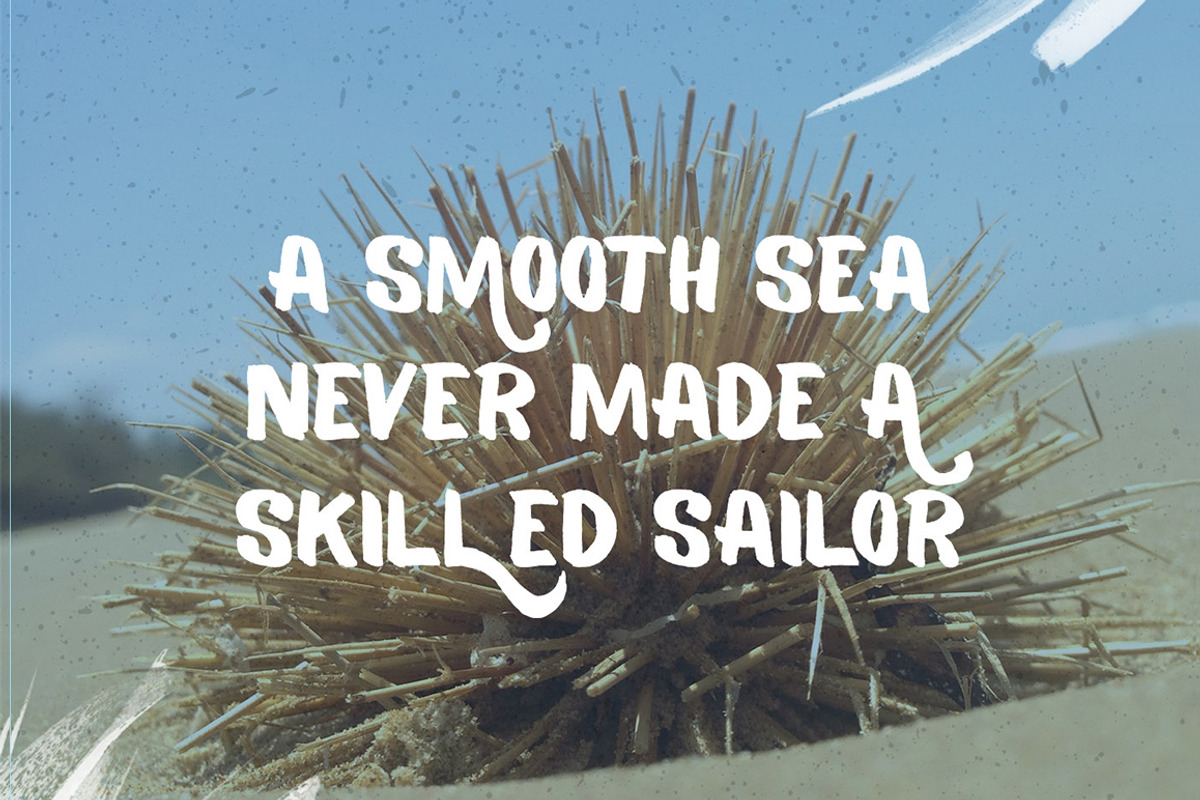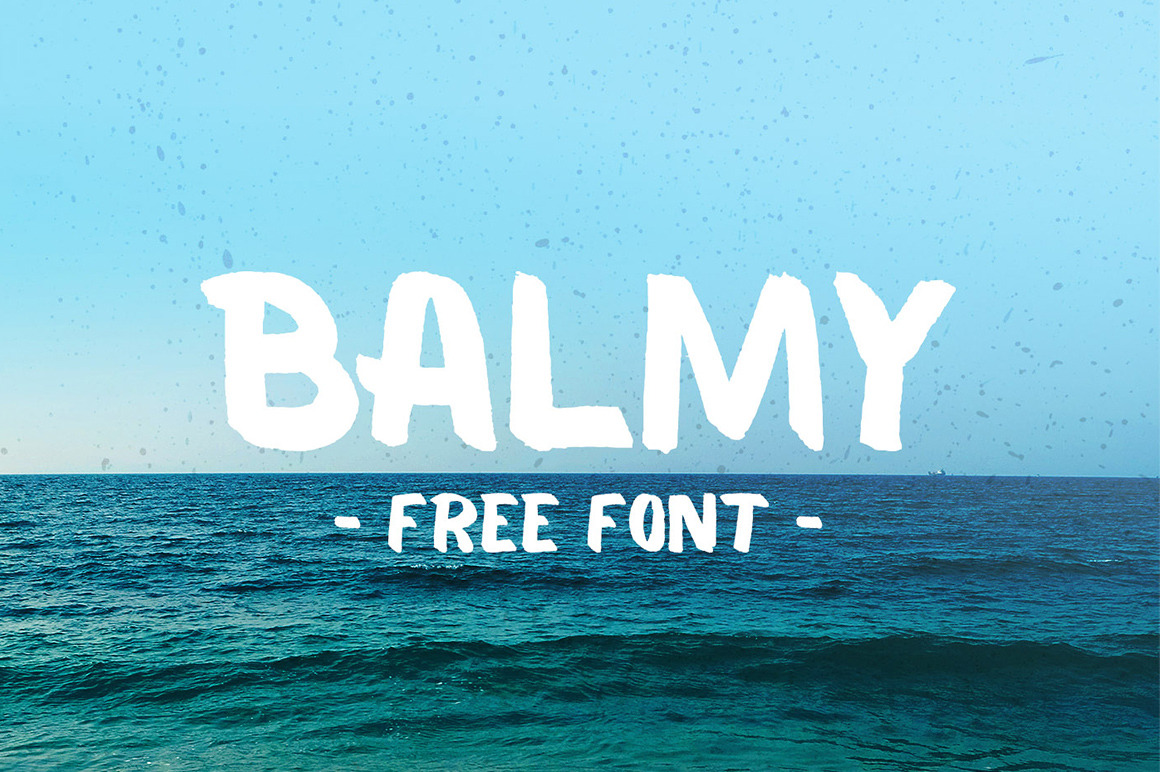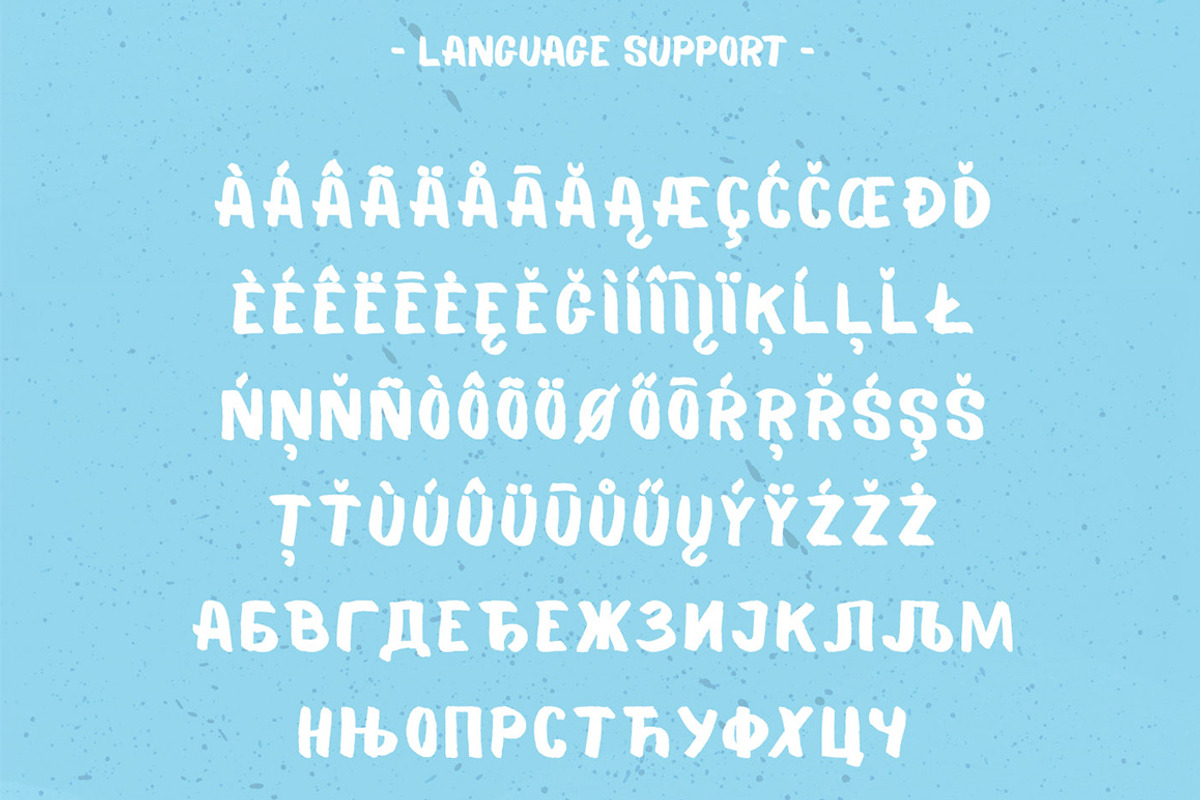
Balmy Brush Font
Balmy is handmade brush font designed for everything vintage and grungy! I wanted to create a more bolder and loud typeface that has that hipster feel.
The font comes with over 400 characters, with ligatures and special characters for posters, logos, or everything handmade! Multilingual support includes Russian, Cyrillic, Central European, Turkish etc.